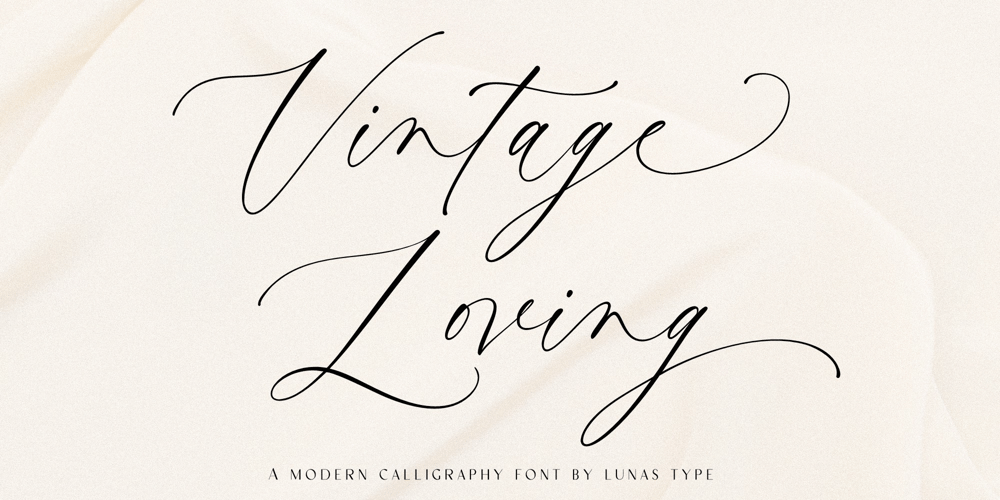
Vintage Loving
Vintage Loving font
Vintage Loving Font Family was designed by Annas Alam Yahya and published by Lunas Type. Vintage Loving contains 1 styles and family package options. Introducing, Vintage Loving!Vintage Loving is a vintage and luxury calligraphy font. Vintage Loving have a chic and natural curves to add charm impression for your design.VIntage Loving is perfect for many design needs such as merch, T-shirts, signature logo, wedding, book covers, social media posts, websites, events, and many more.What’s you get :– Ending Swashes & beginning swashes.– Numeral & Punctuation.– ligature.– Multilingual Support.Enjoy Designing!Thanks!Lunas Type